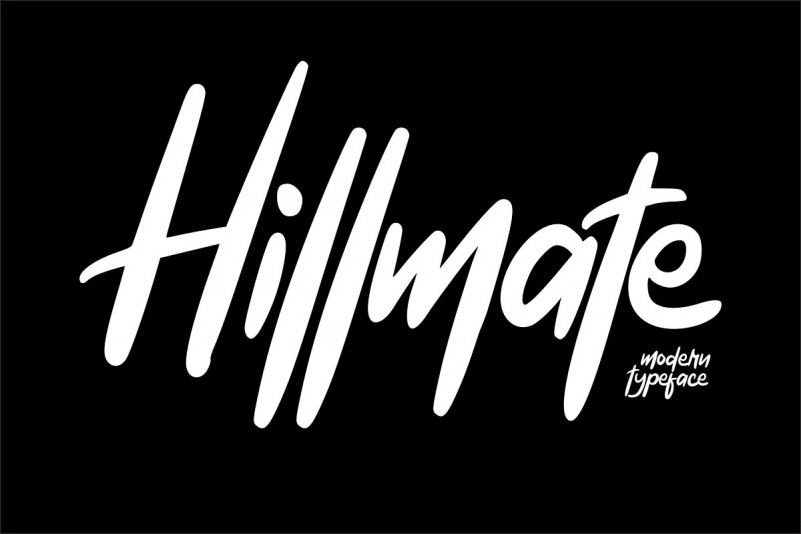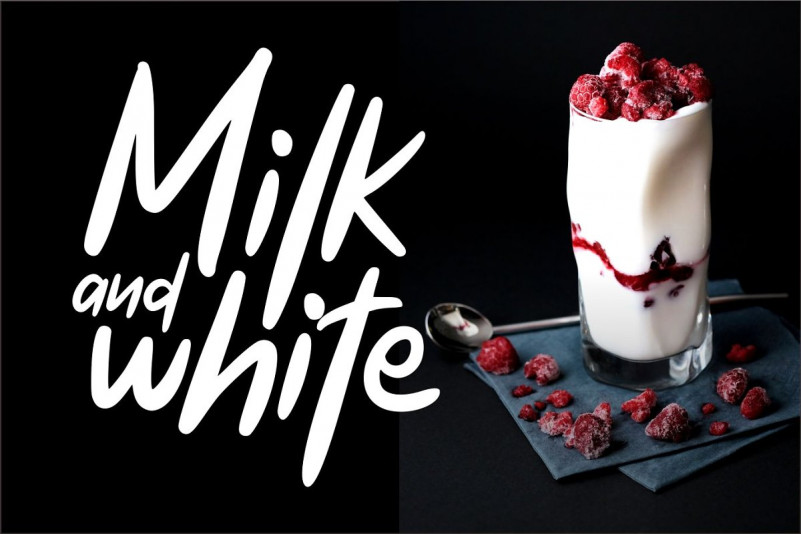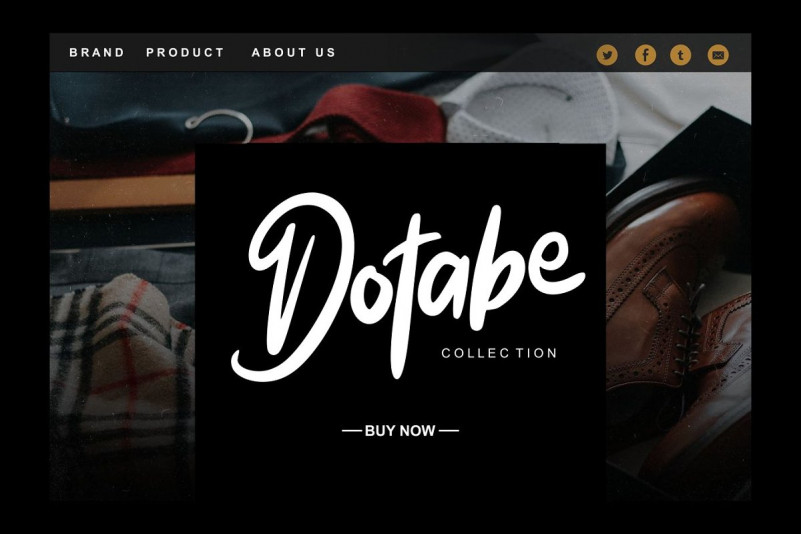
Hillmate Font
Hillmate | Modern Typeface Script with a calligraphy style, So beautiful on invitation like greeting cards, branding materials, business cards, quotes, posters, and more!